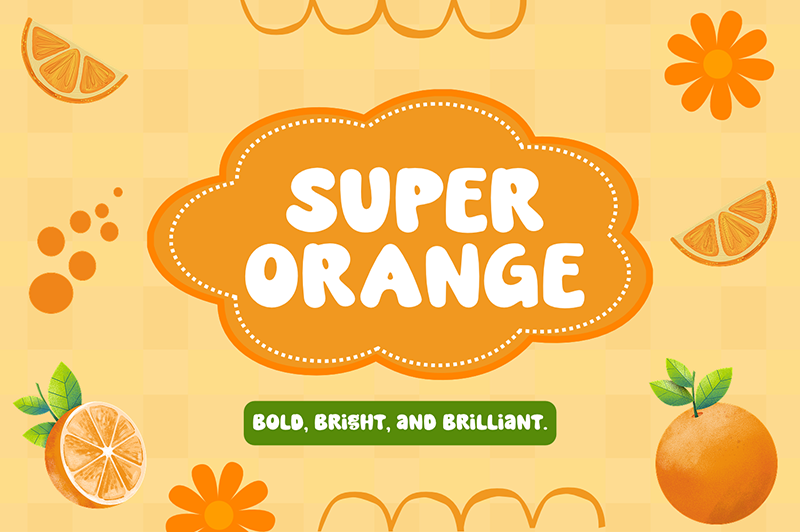
Font name: | Super Orange |
This font is for PERSONAL USE ONLY!. If you want to use this font for commercial purposes, you will need to purchase a commercial license. You can purchase a commercial license at https://nhfonts.etsy.com/listing/1771910659/super-orange-font Super Orange is a bold and bubbly font that exudes pure joy. Its rounded, open forms create a playful and inviting atmosphere, perfect for capturing attention. This energetic typeface is ideal for designs targeting a young audience or projects that demand a fun and friendly vibe. Whether it's for children's products, casual branding, or attention-grabbing headlines, Super Orange is sure to add a splash of sunshine to any project. |